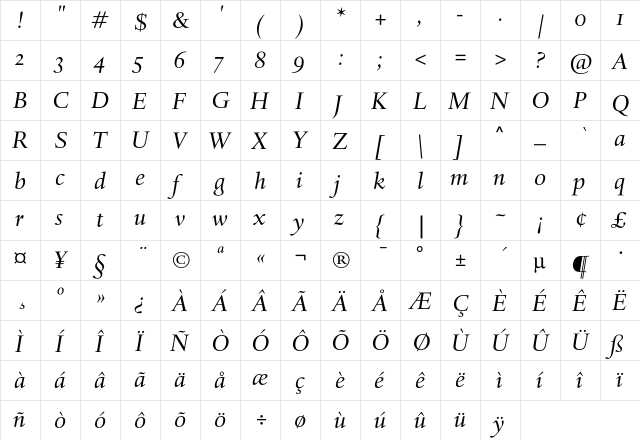
DTL Haarlemmer SD Italic Font Preview
DTL Haarlemmer SD Italic
Design Context for DTL Haarlemmer Typeface
DTL Haarlemmer takes a measured approach to typography — its balanced proportions and neutral character make it a reliable workhorse for both digital and print work. The slanted form adds forward momentum and visual energy.
Pro Tip: Try DTL Haarlemmer for annotation and caption copy alongside an upright companion — the contrast in angle creates a dynamic but ordered typographic system.